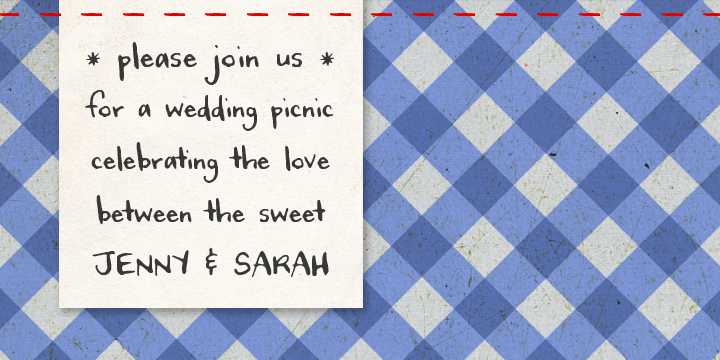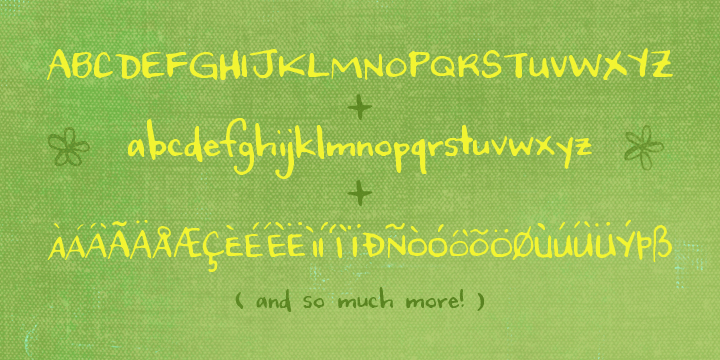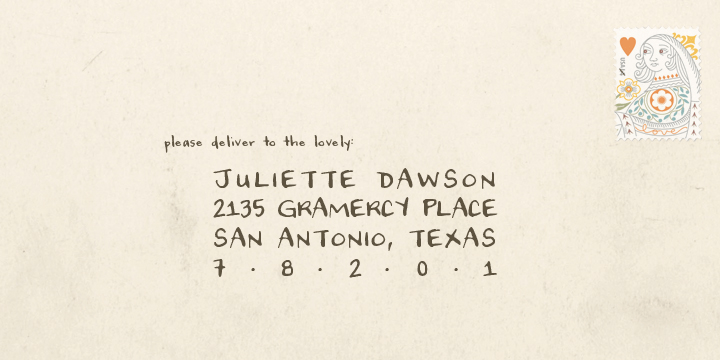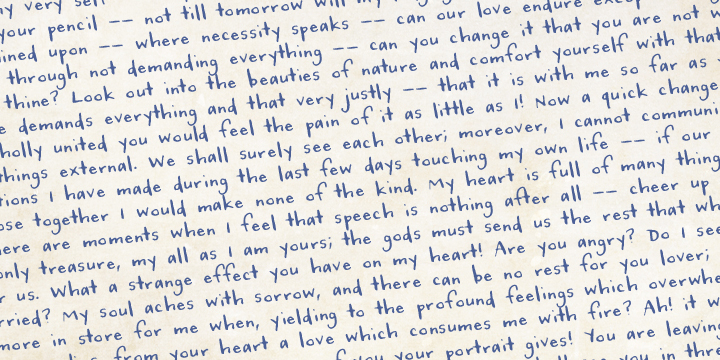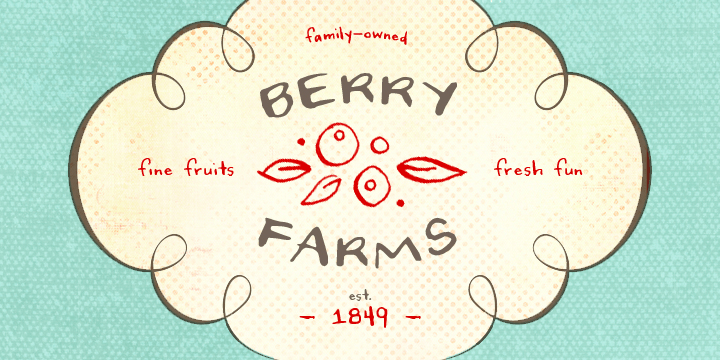
Sullivan
Font Family by Magpie Paper Works
Sullivan is a modern calligraphy font with a sweet and considered vibe. Handdrawn with vintage calligraphy nibs and ink, he is ready to shine in personal correspondence, scrapbooks, stationery, and illustrated reference and picture publications. (Sully adores love letters and recipes.) In addition to a complete set of capital and lowercase letters, he also includes multi-lingual support, currency figures, fractions, numerals, punctuation and more.